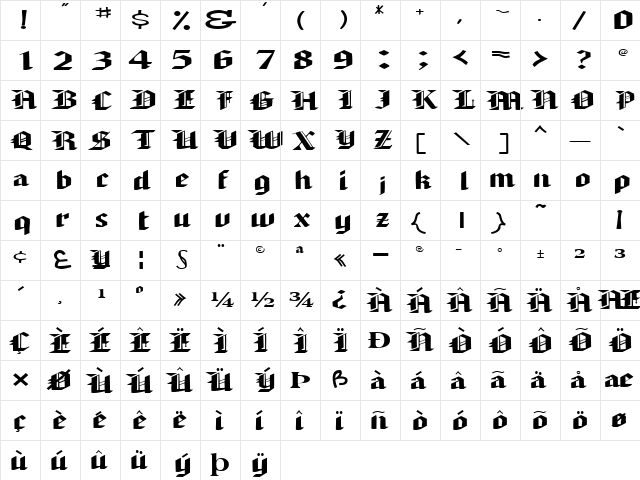
ArmedaExpandedSSK Bold
Design Context for ArmedaExpandedSSK Typeface
ArmedaExpandedSSK is a composed and adaptable typeface that performs quietly and consistently across a wide range of design contexts. The heavy weight commands attention and anchors typographic hierarchies.